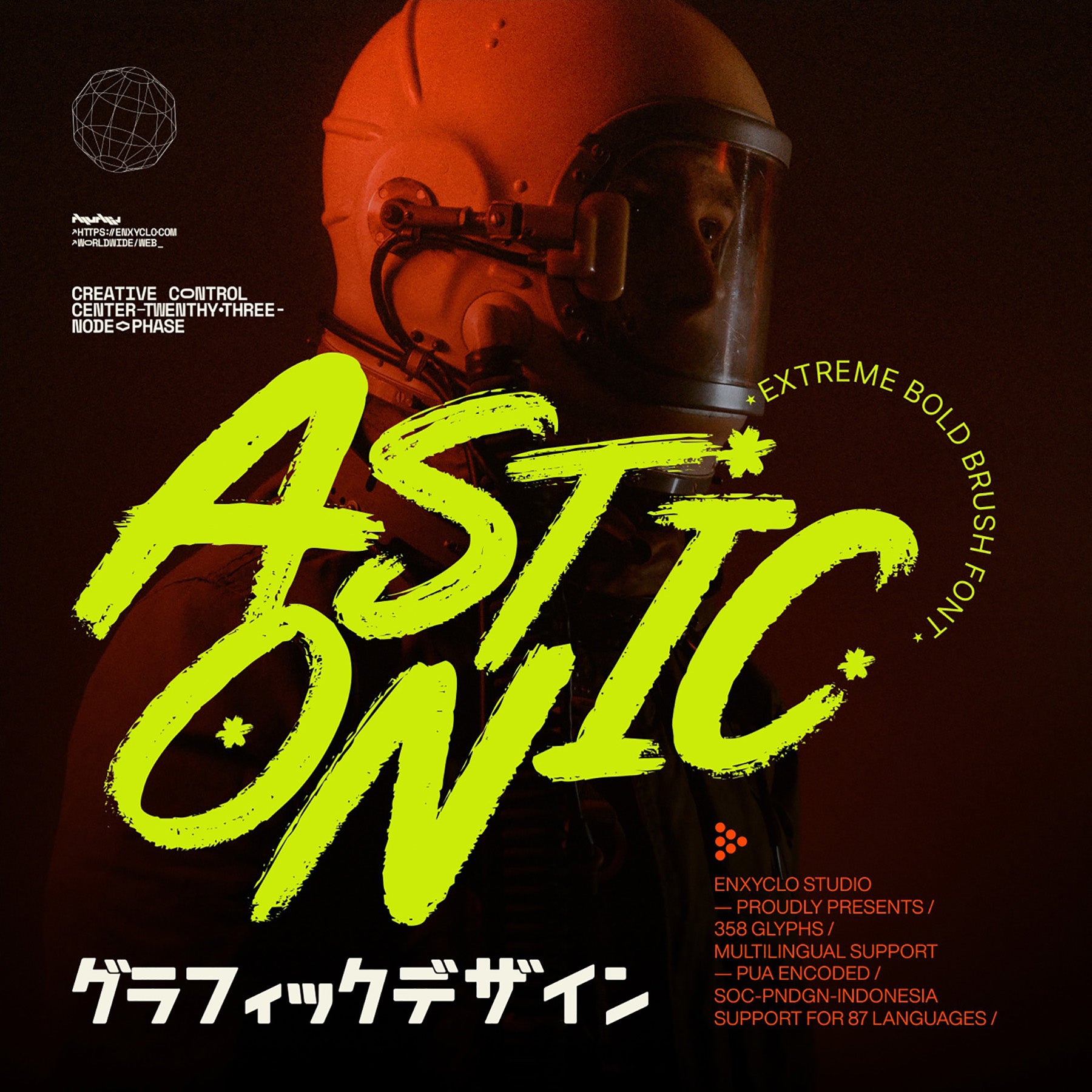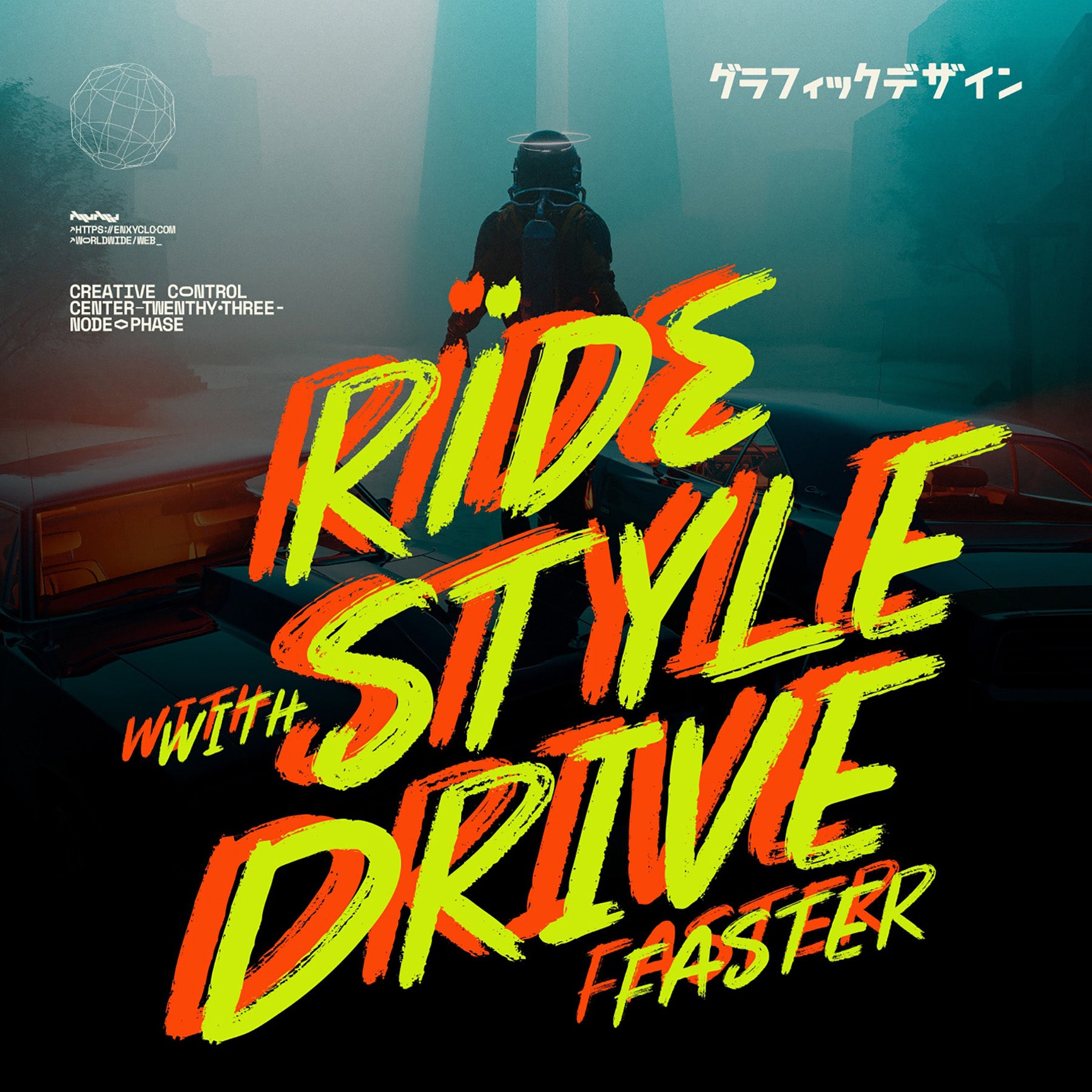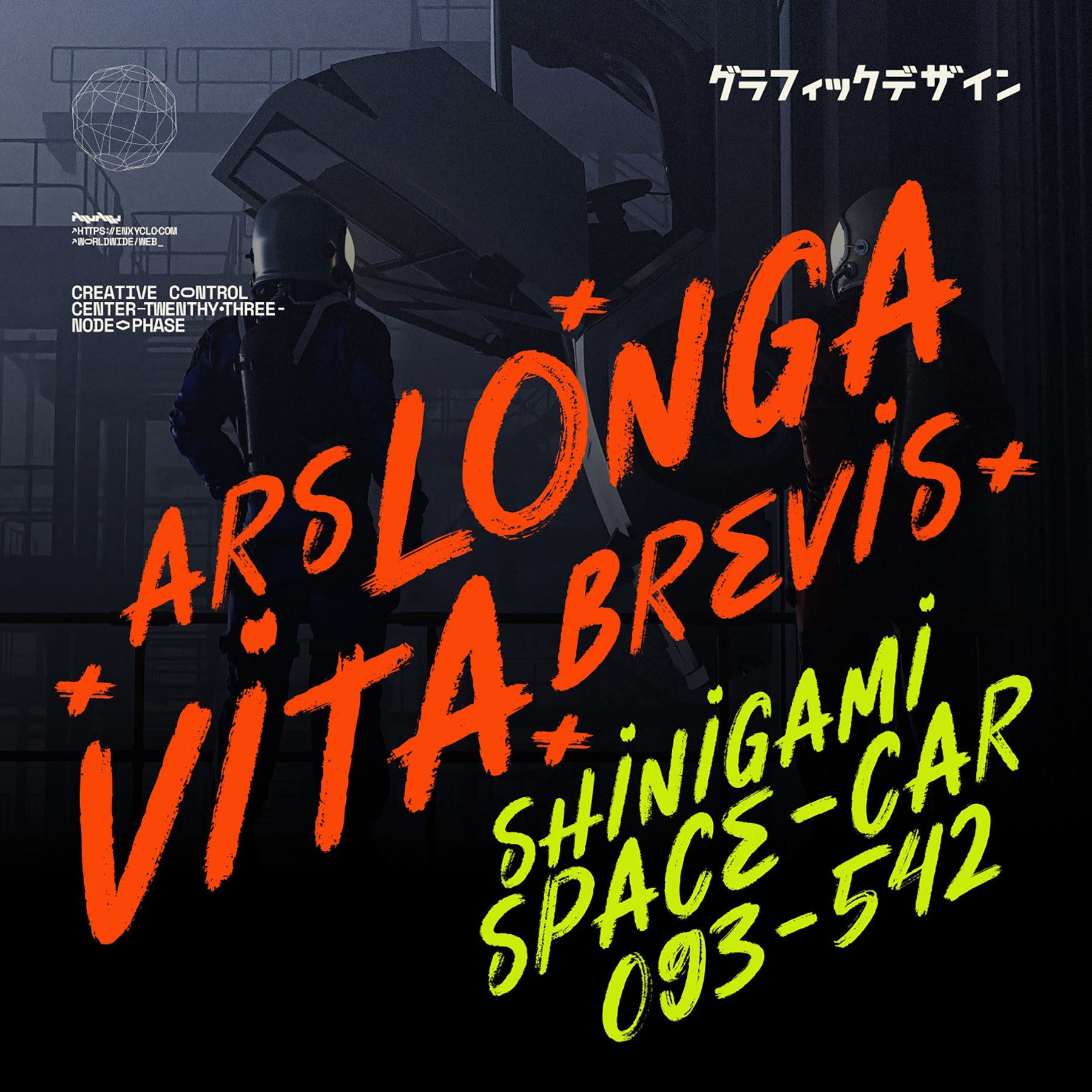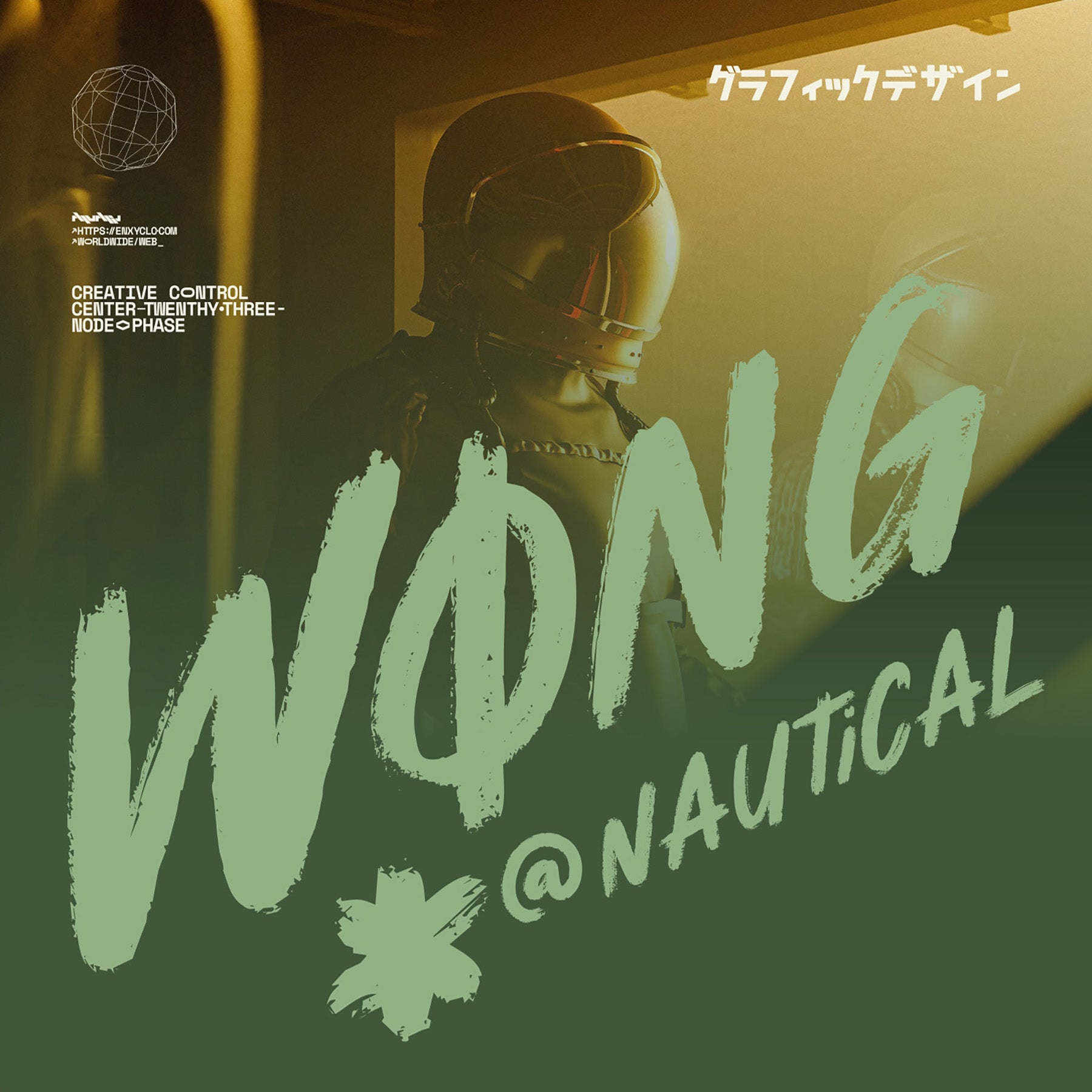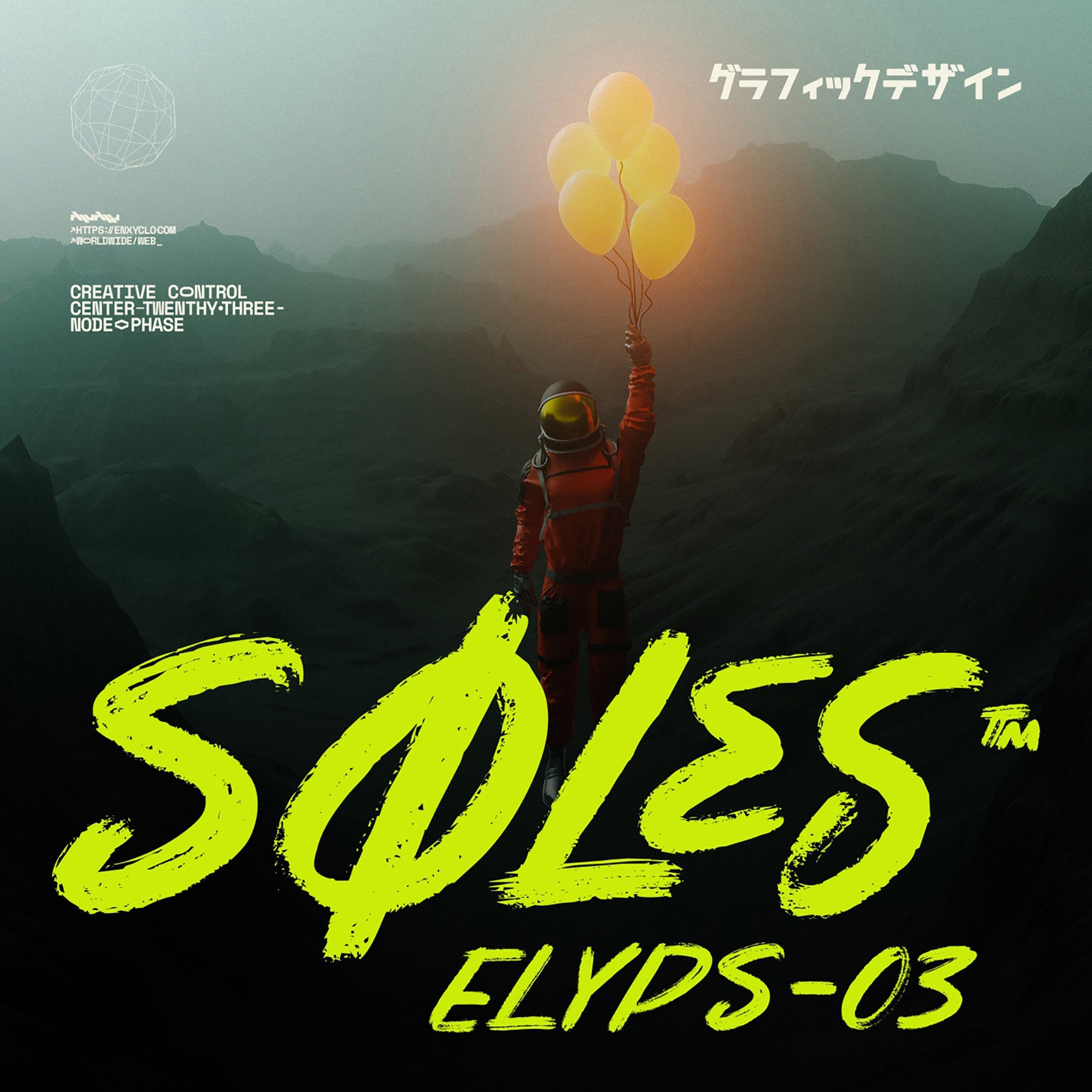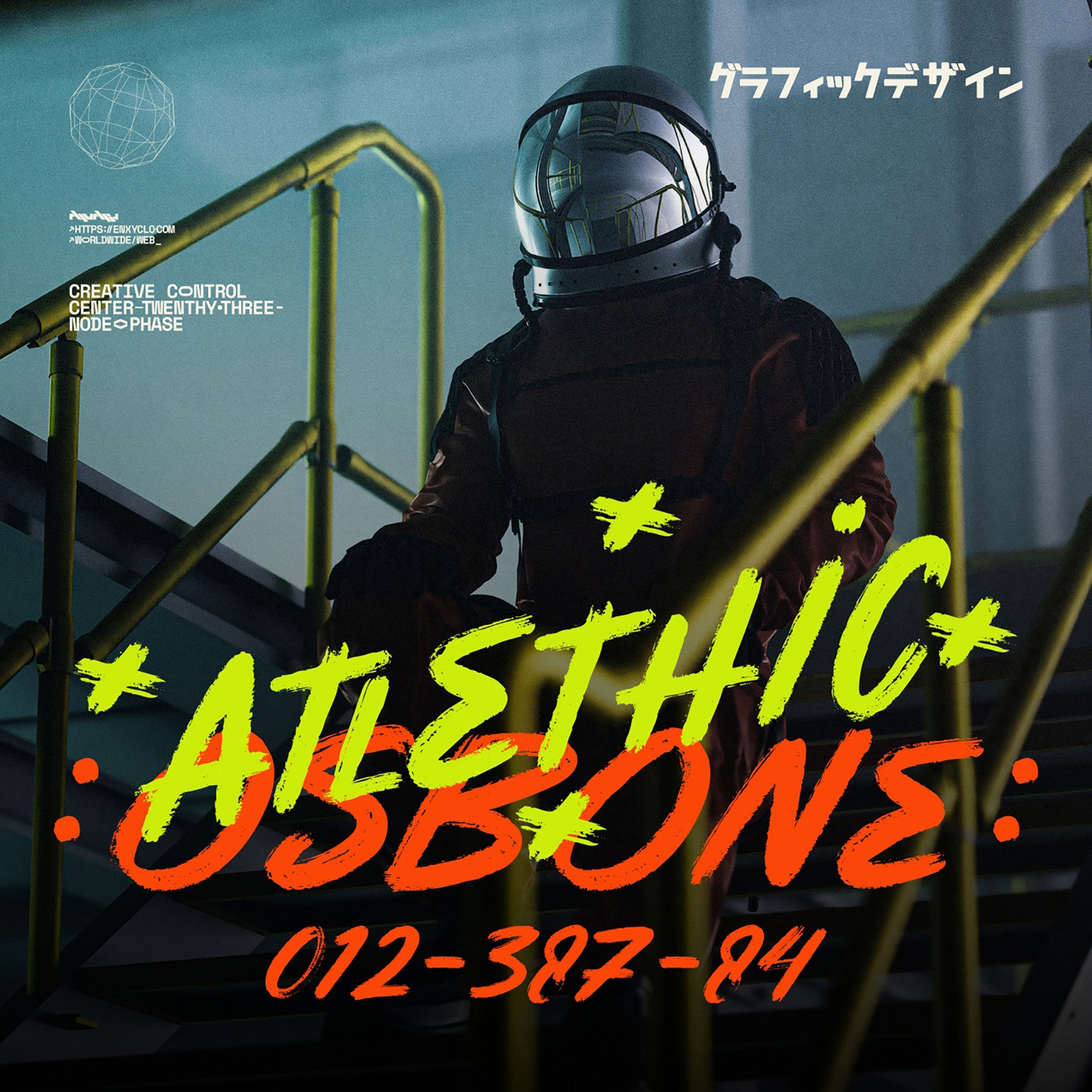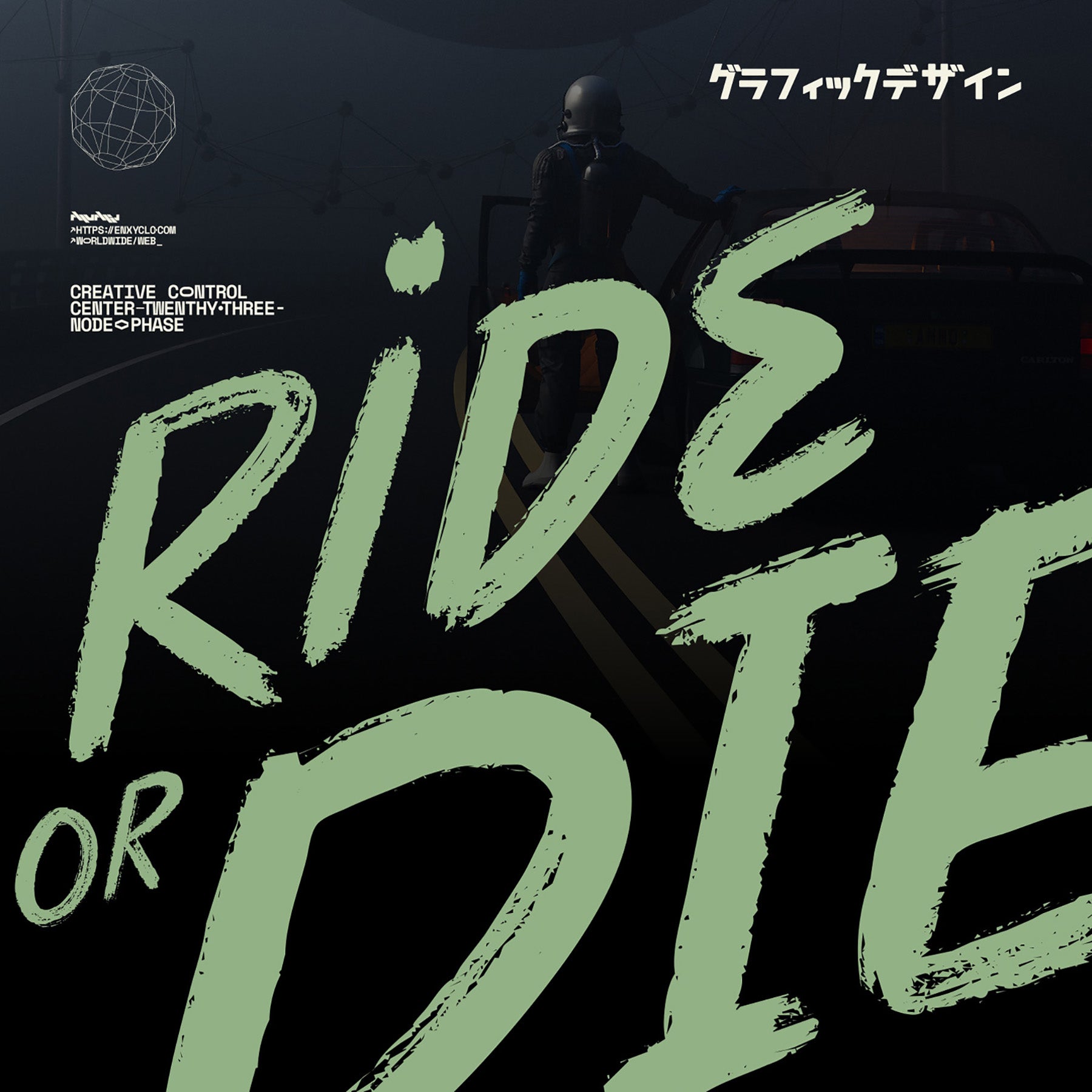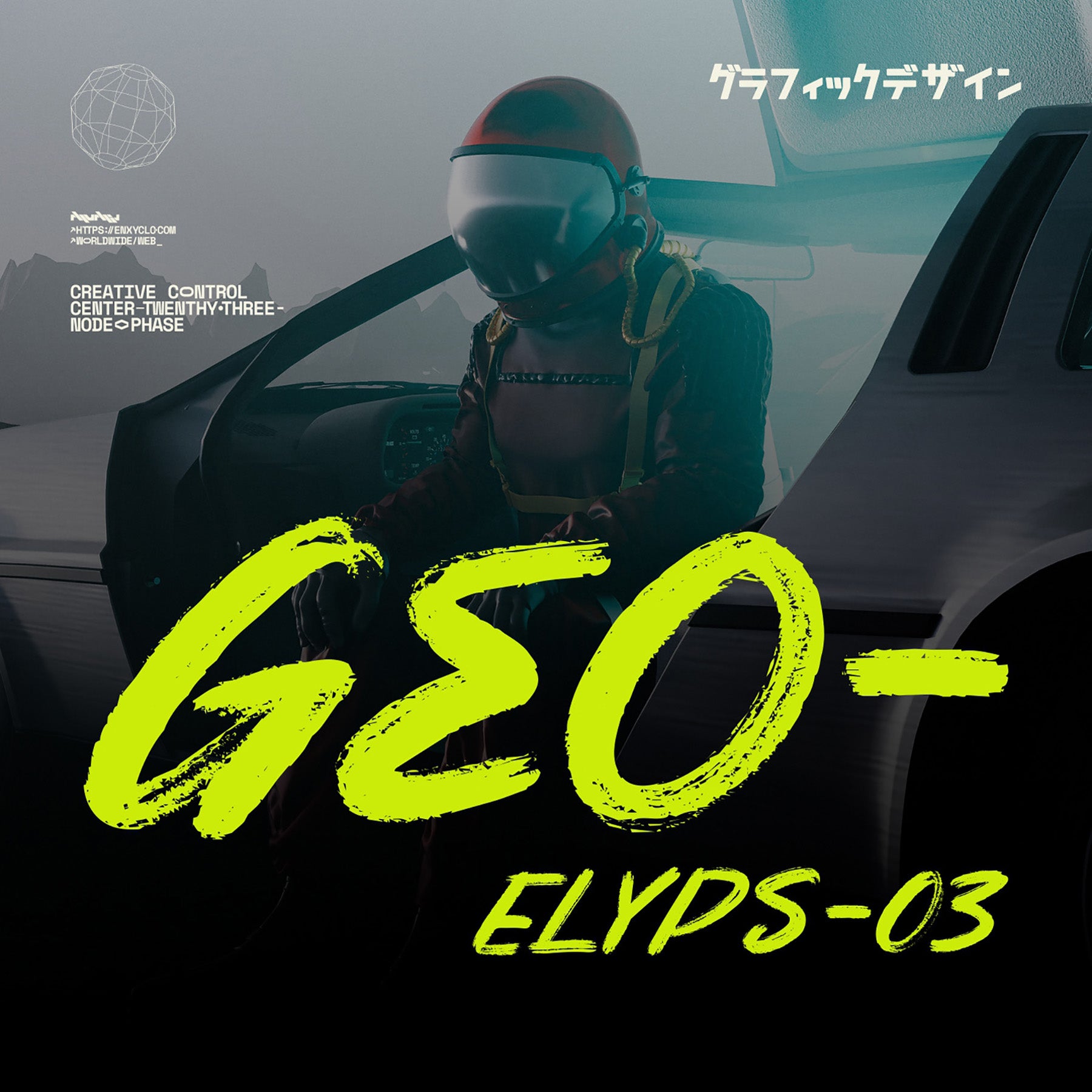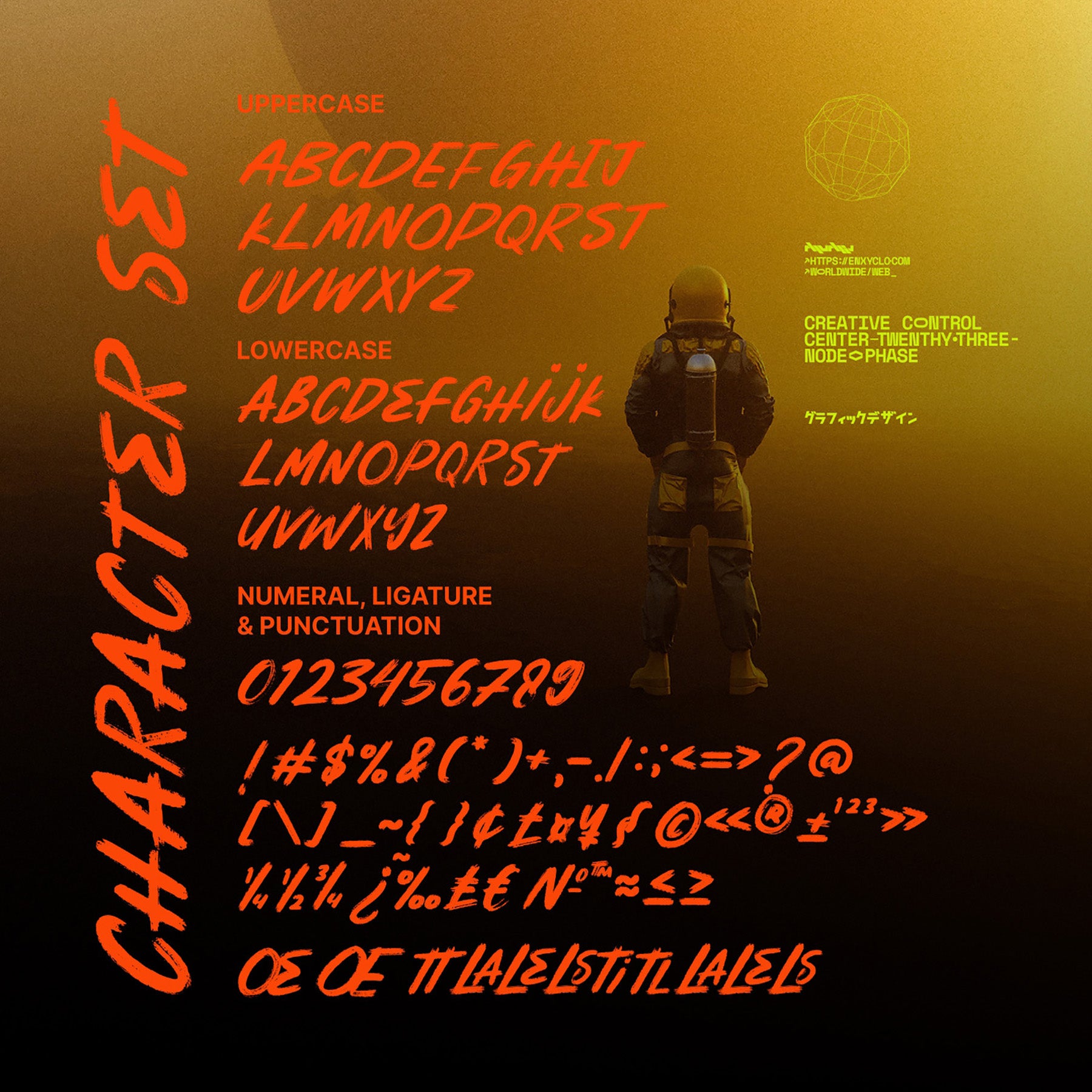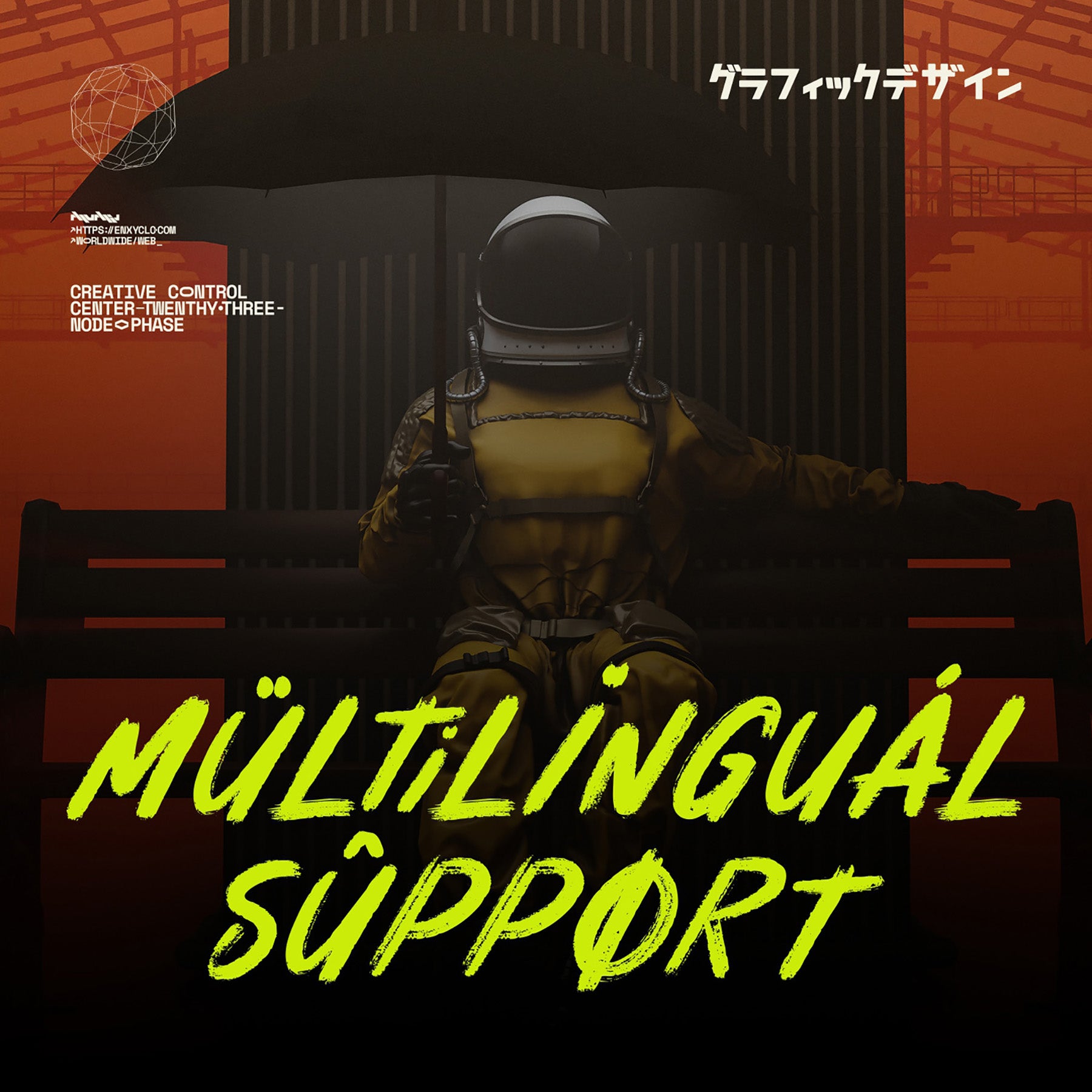
NCL ASTONIC Typeface
NCL ASTONIC: an incredibly bold brush script font that exudes excitement and uniqueness. Combining stylish modern elements with a touch of timeless class, this font stands as a true masterpiece ready to amplify your creative visions. Crafted to excel in larger sizes, its enchanting appeal remains undiminished even in smaller text.
Designed for headlines, billboards, magazines, websites, posters, and branding, NCL ASTONIC adapts flawlessly to any context. Whether it's for titles, t-shirt designs, or logos, this font seamlessly integrates with your projects, promising an exceptional outcome. Elevate your font collection with this captivating typeface that guarantees to set your creations apart. Explore the previews above to ignite your imagination on innovative ways to deploy this font's potential.